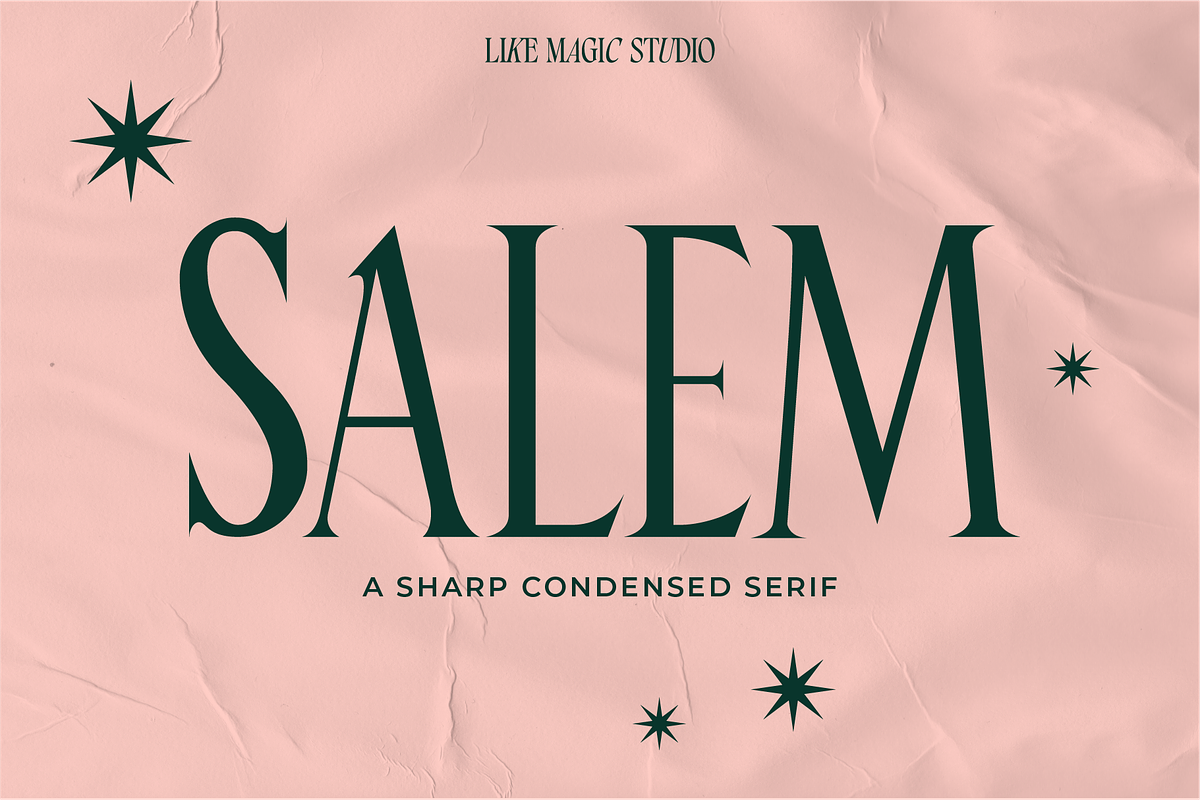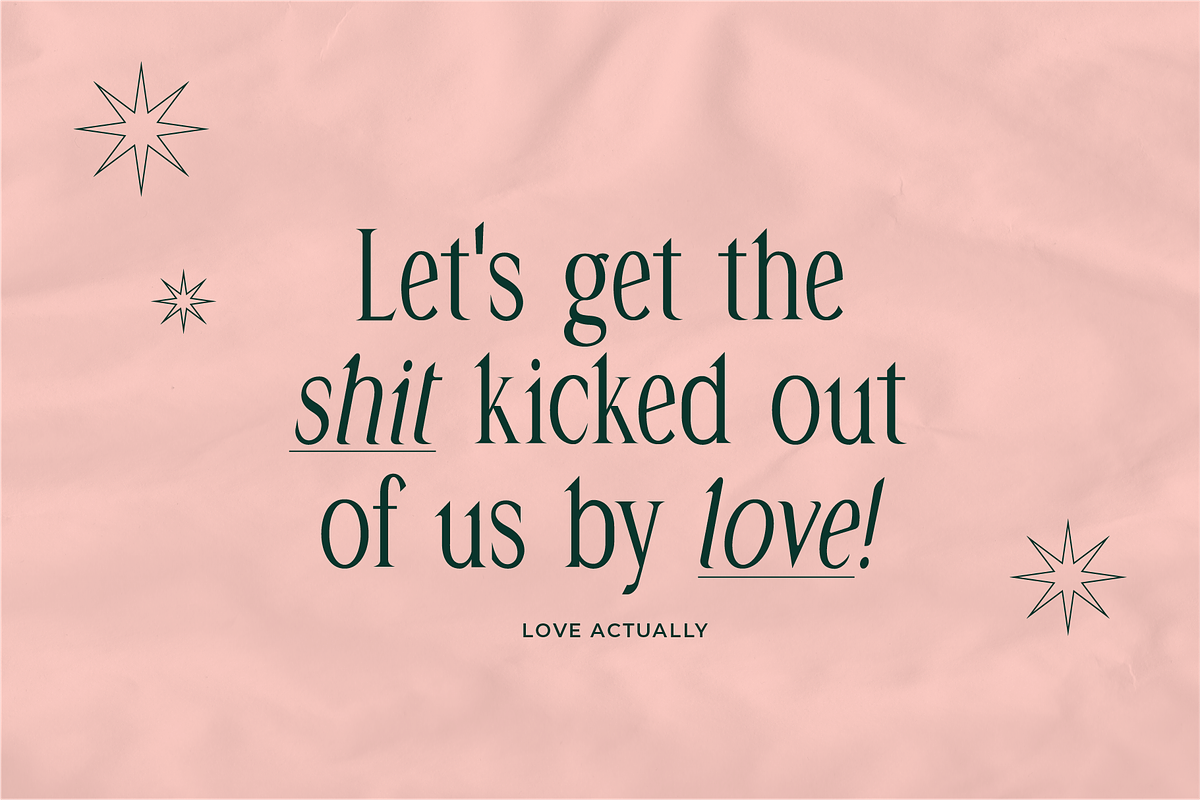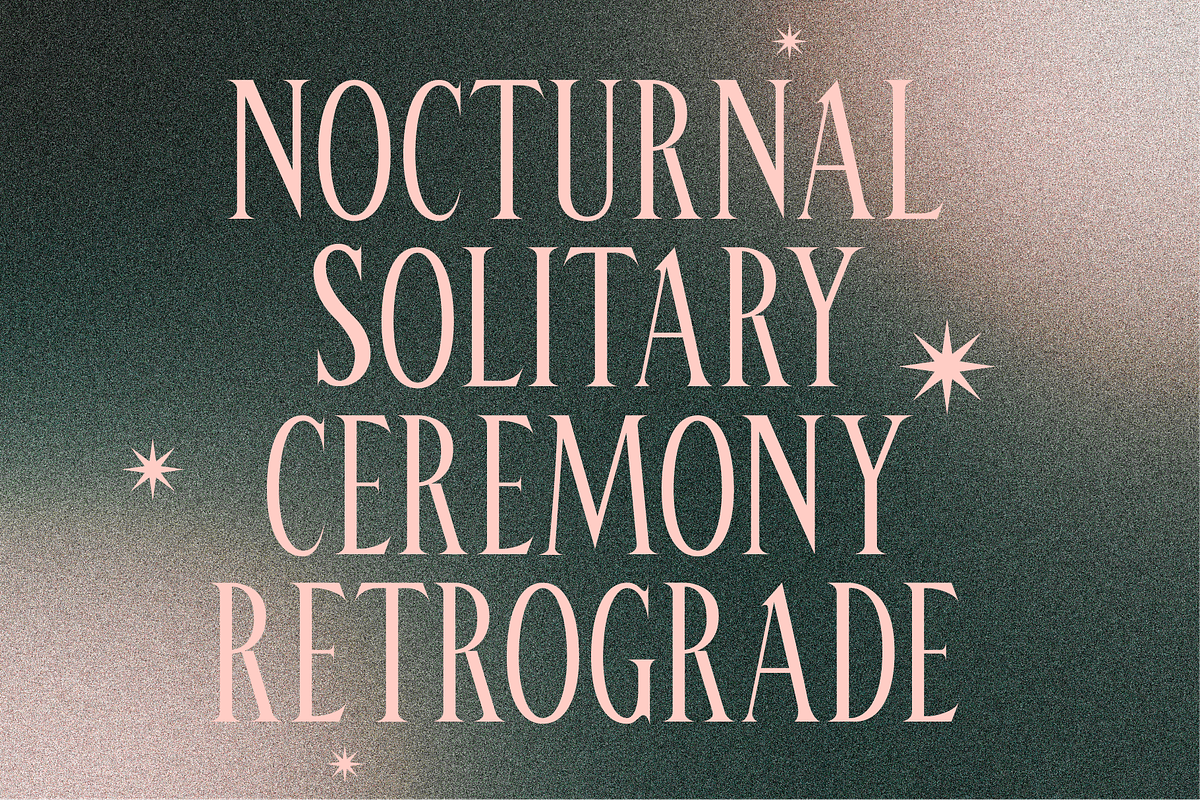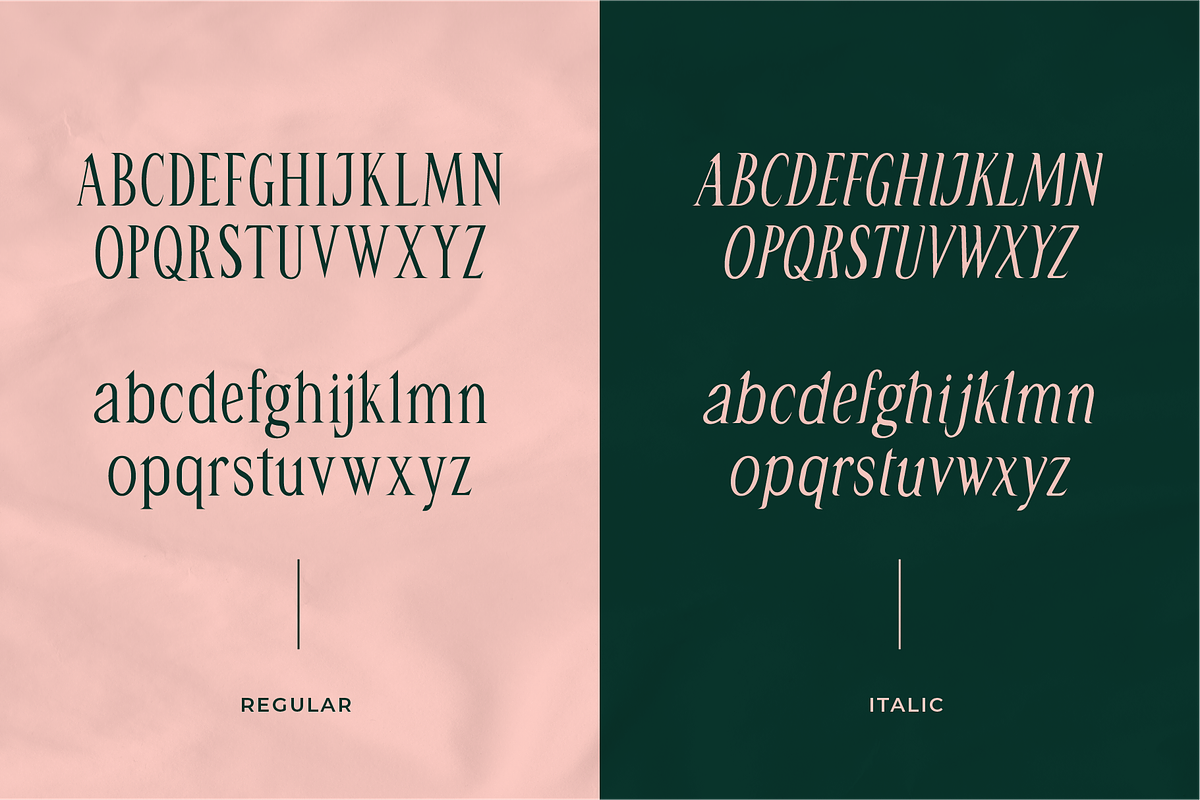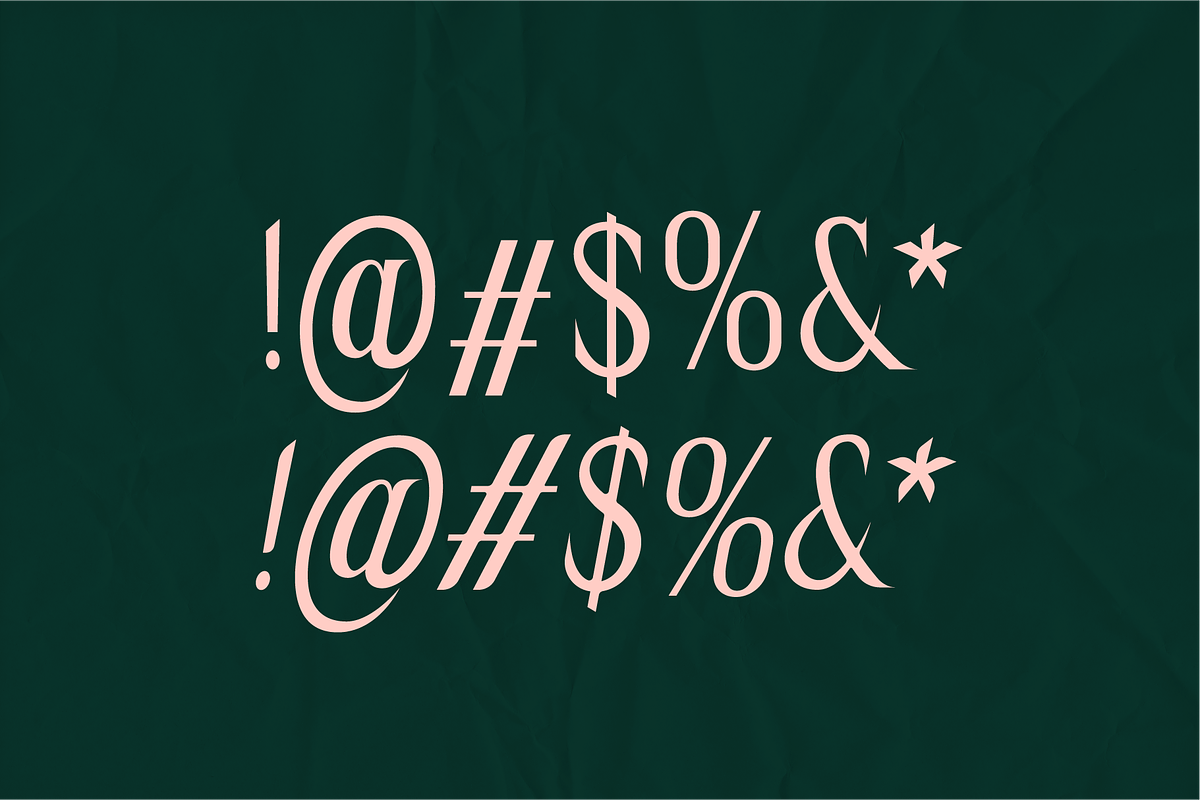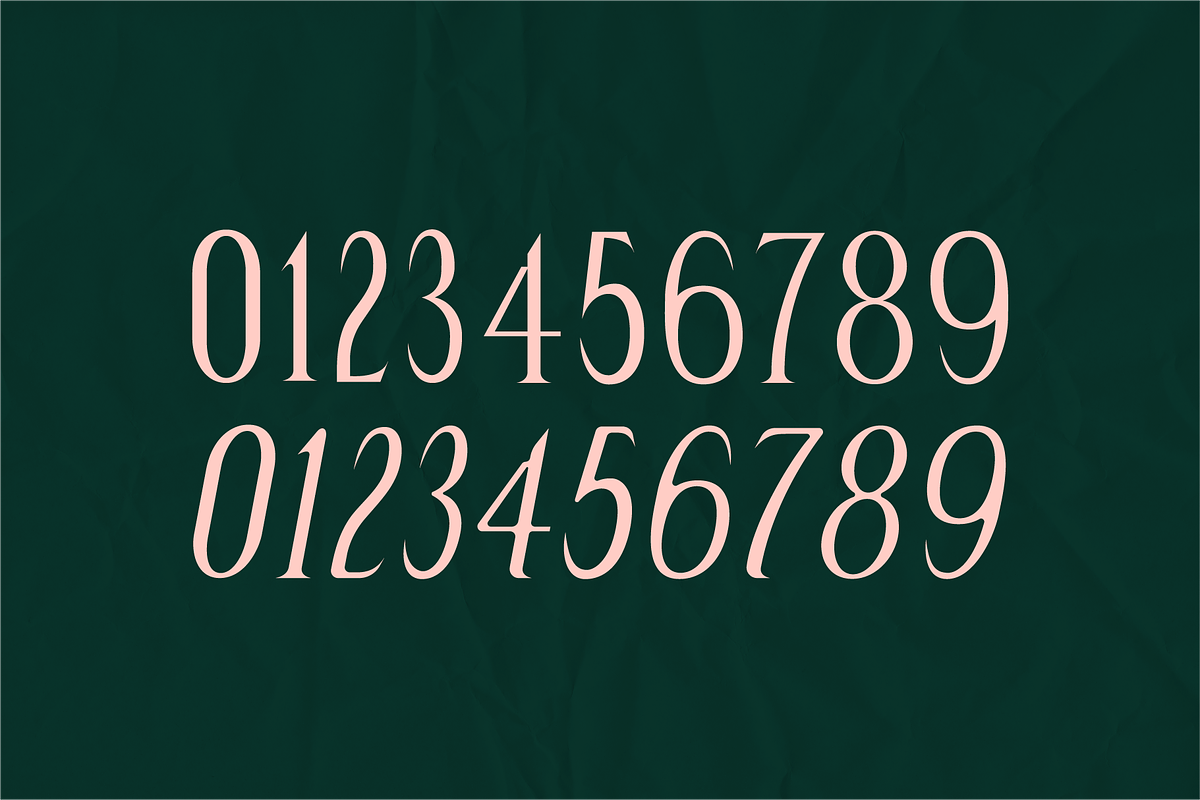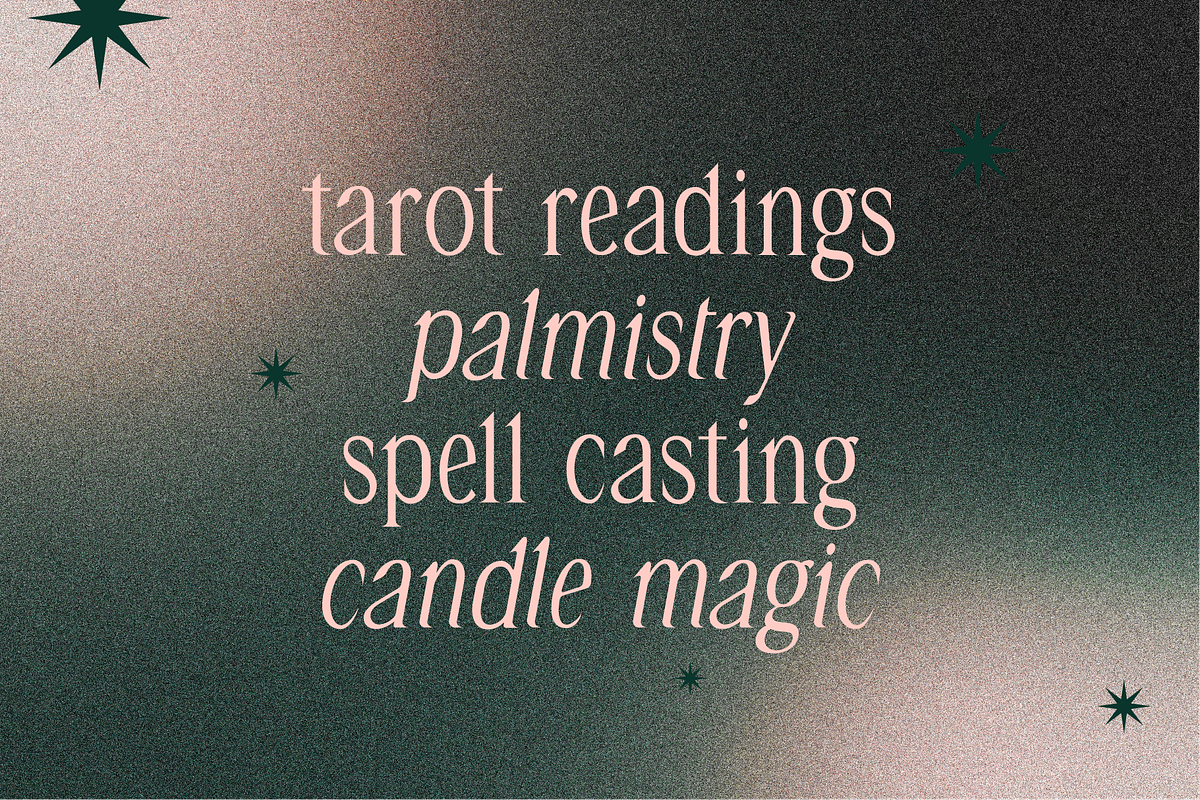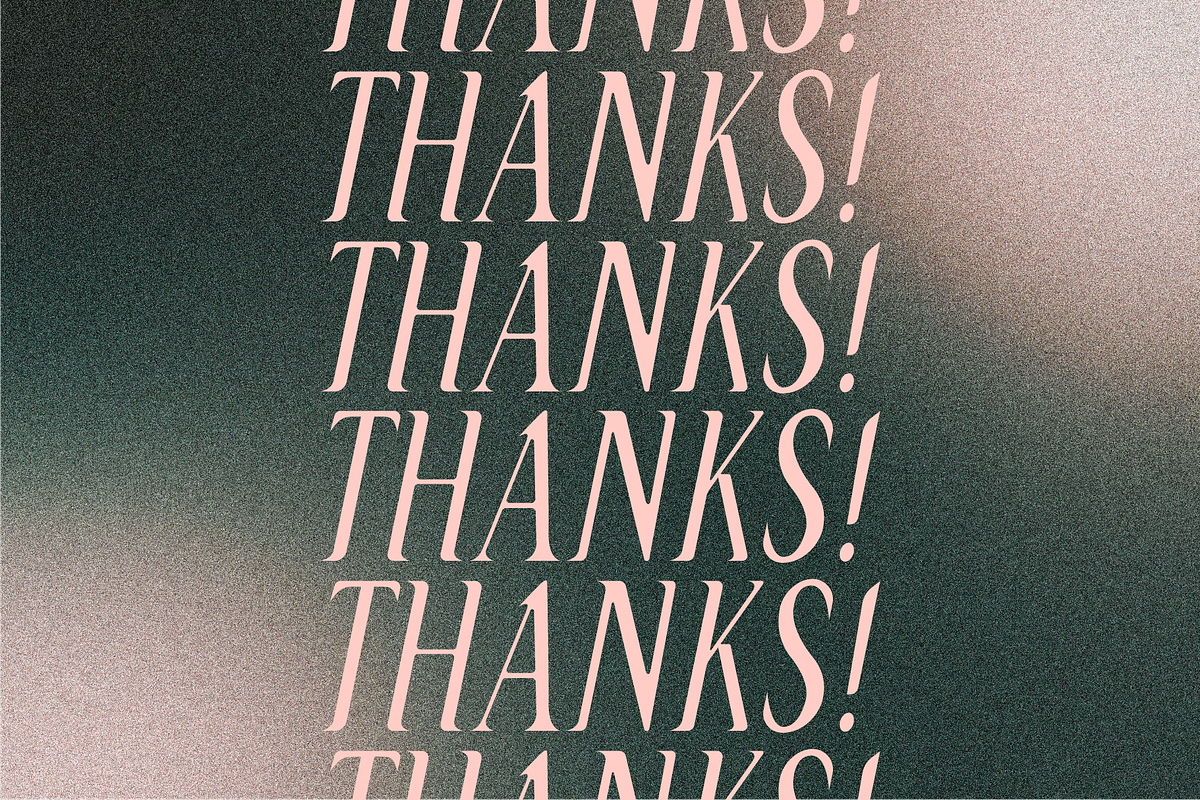
Salem - A Sharp Condensed Serif
Salem is a sharp condensed serif typeface from Like Magic Studio.
It's elegant and edgy, perfect for your next project.